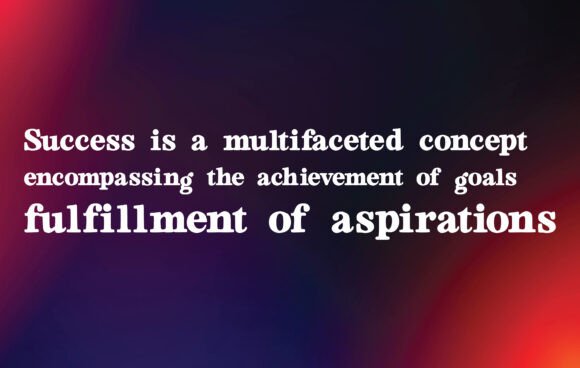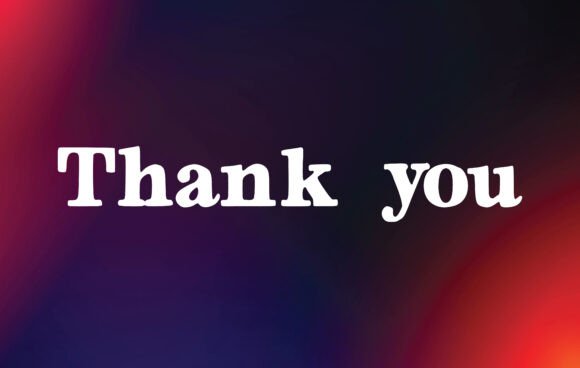
Discover the Elegance of Bridget Font: Elevate Your Designs with this Stunning Typeface
Are you a designer, crafty enthusiast, or simply someone who appreciates beautiful typography? Look no further than the Bridget font, a lovely and beautiful typeface that has the potential to take your creative ideas to the highest level. With its elegant and sophisticated design, Bridget is the best choice for creating eye-catching logos, branding, and quotes that will leave a lasting impression.
The Characteristics of Bridget Font
Bridget font is a masterpiece of typographic design, boasting a range of characteristics that make it both versatile and visually stunning. Its elegant curves, precise lines, and balanced proportions create a harmonious and refined aesthetic that is perfect for a wide range of design applications. Whether you’re looking to create a luxurious brand identity, a captivating logo, or a thought-provoking quote, Bridget font provides the perfect foundation for your creative vision.
Why Choose Bridget Font?
So, what sets Bridget font apart from other typefaces? Here are just a few reasons why designers and crafters alike are falling in love with this beautiful font:
- Elegance and Sophistication: Bridget font exudes a sense of luxury and refinement, making it perfect for high-end branding, logos, and designs that require a touch of sophistication.
- Versatility: With its clean and simple design, Bridget font can be used in a wide range of applications, from digital designs to print materials, and from logos to quotes.
- Easy to Read: Despite its elegant design, Bridget font is highly legible, making it perfect for use in body text, captions, and other applications where readability is key.
- Customizable: Bridget font can be easily customized to suit your design needs, allowing you to experiment with different colors, sizes, and styles to create a unique look that reflects your brand or personal style.
Using Bridget Font in Your Designs
So, how can you use Bridget font to elevate your designs? Here are a few ideas to get you started:
- Logos and Branding: Use Bridget font to create a luxurious and sophisticated brand identity that will help you stand out from the competition.
- Quotes and Typography: Create stunning quote designs that showcase Bridget font’s elegant curves and precise lines.
- Social Media Graphics: Use Bridget font to create eye-catching social media graphics that will help you engage with your audience and build your brand.
- Print Materials: From business cards to brochures, Bridget font is perfect for a wide range of print materials that require a touch of elegance and sophistication.
Tips and Tricks for Working with Bridget Font
To get the most out of Bridget font, here are a few tips and tricks to keep in mind:
- Experiment with Colors: Bridget font looks stunning in a range of colors, from bold and bright to soft and pastel. Experiment with different colors to find the perfect combination for your design.
- Play with Sizes: Bridget font can be used in a range of sizes, from large and bold to small and delicate. Experiment with different sizes to create visual interest and hierarchy in your design.
- Add Texture and Patterns: Add texture and patterns to your design to create a unique and eye-catching look that showcases Bridget font’s elegant curves and precise lines.
In conclusion, Bridget font is a beautiful and elegant typeface that has the potential to take your creative ideas to the highest level. With its sophisticated design, versatility, and ease of use, Bridget font is the perfect choice for designers, crafters, and anyone looking to create stunning logos, branding, and quotes. So why wait? Download Bridget font today and discover the elegance and sophistication it can bring to your designs!